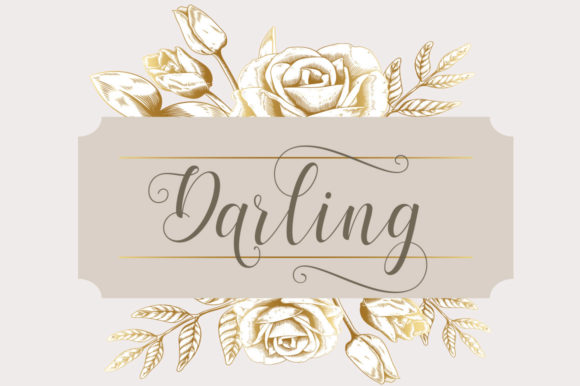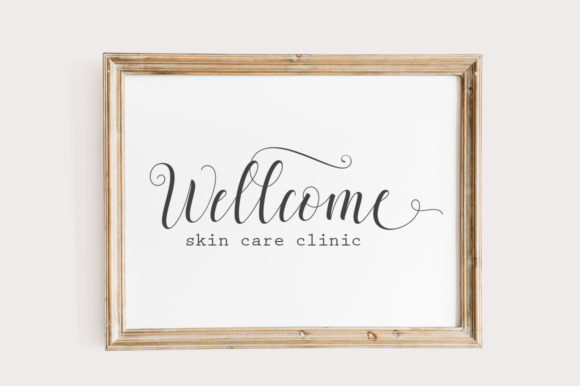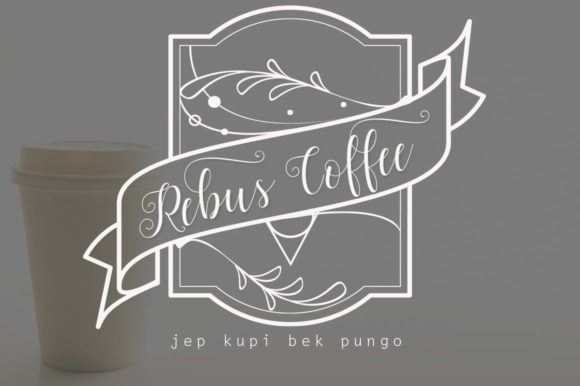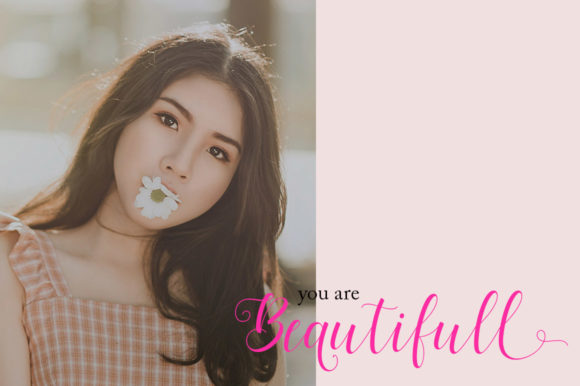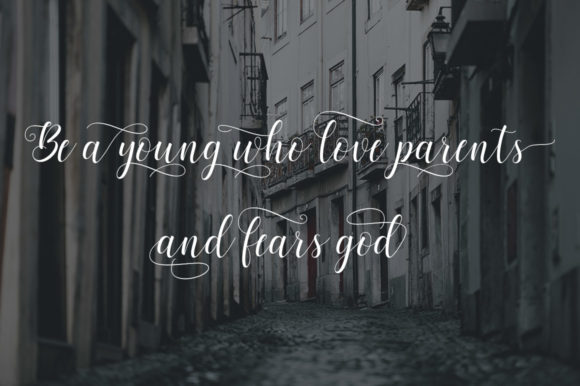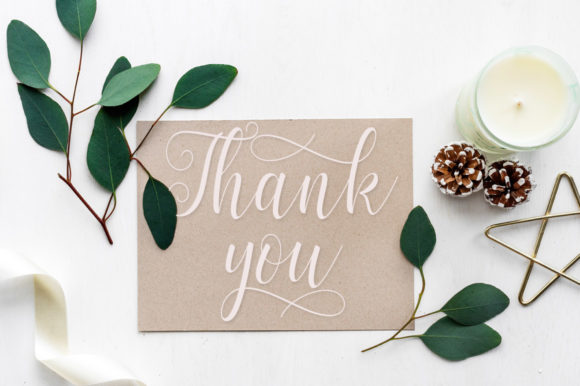
Bertiga Font
About Bertiga Font
The Bertiga is a fresh handmade calligraphy font. It has an elegant and feminine feel which can be used to give your greeting card, quote, poster, branding material, and much more, a luxurious touch!